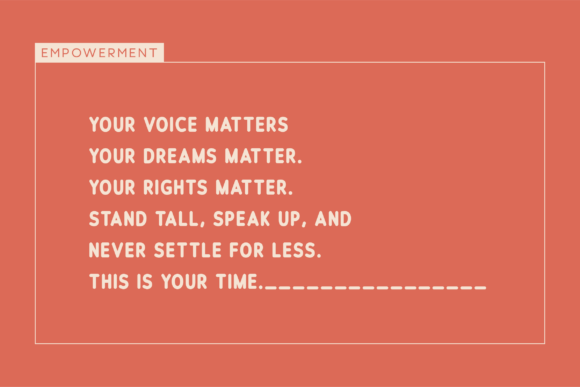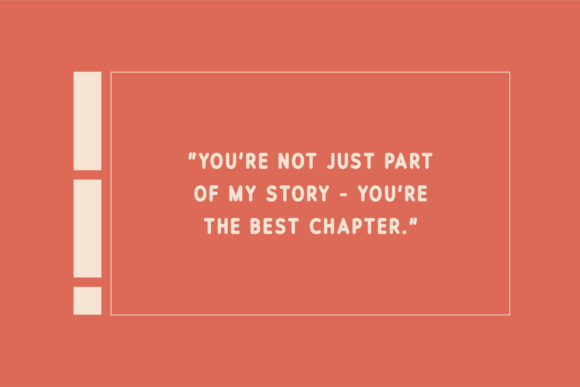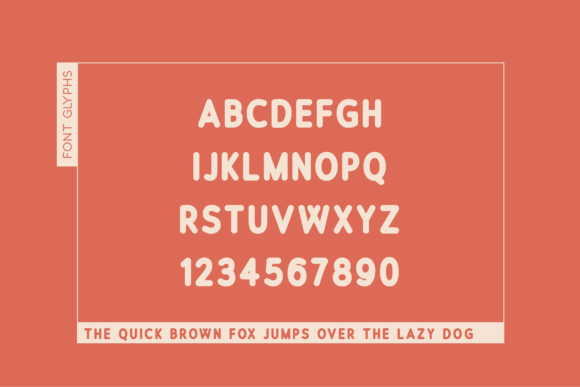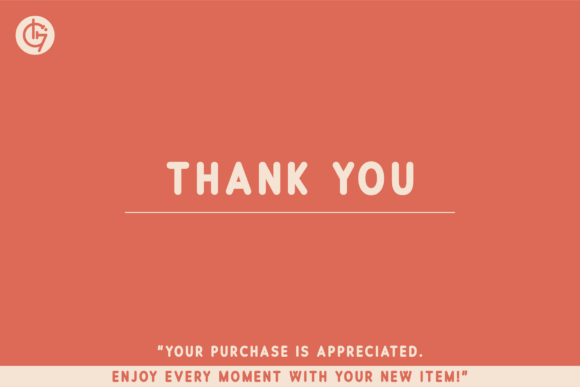
Introduction to Sheldom Font
As designers, we’ve all been there – staring at a blank canvas, trying to bring our creative vision to life. It’s in these moments that the right font can make all the difference. For me, it was the moment I stumbled upon the Sheldom Font, and everything clicked. Its bold, approachable sans-serif design radiated warmth and reliability, making it perfect for brands that value community and comfort.
The Sheldom Font is more than just a design resource – it’s a high-quality tool that can elevate any creative project. With its thick strokes and generous curves, this font is designed to be noticed without being aggressive, making it an excellent choice for outdoor adventure branding, organic product packaging, or large-scale event posters. Plus, its transparent background allows for seamless integration with complex backgrounds.
Key Features of Sheldom Font
- Unique characteristics include elegant and modern typography
- Perfect for designers seeking a professional and clean font for their projects
Honest Review: Sheldom Font
As a designer, I’m always on the lookout for high-quality design resources that can elevate my creative projects. I recently had the chance to work with the Sheldom Font, and I’m excited to share my honest review with you.
- High-quality typography: The Sheldom Font has a clean and modern aesthetic that’s perfect for a wide range of creative projects.
- Transparent background: This allows for seamless integration with background images or colors, giving you more flexibility in your design.
- Limited character set: The Sheldom Font has a relatively limited character set, which may not be suitable for projects that require a wide range of characters.
- No bold or italic weights: While the font has a clean aesthetic, it may not be suitable for projects that require bold or italic text.
Overall, the Sheldom Font is a solid addition to any designer’s toolkit. While it may have some limitations, its high-quality typography and transparent background make it a great choice for a wide range of creative projects.
Tips for Getting the Most Out of Sheldom Font
To get the most out of Sheldom Font, experiment with different font sizes, colors, and styles to create visually appealing designs. You can also use it in combination with other design elements to create a cohesive look.
Sheldom Font is suitable for a wide range of creative projects, including:
- Logo creation
- Typography-based art
Alternatives to Sheldom Font
Open Sans is a popular, high-quality sans-serif font perfect for creative projects. It’s available for free download and comes in various weights and styles. Open Sans is ideal for body text, headings, and titles in modern designs.
When to use: Open Sans is suitable for most design projects, especially those requiring a clean and modern look. It’s a great alternative to Sheldom Font for designs that need a more subtle, yet professional appearance.
Comparison to Sheldom Font: While both fonts are sans-serif, Open Sans has a more modern and minimalist feel compared to the softer, more rounded look of Sheldom Font.
Montserrat is a geometric sans-serif font that’s perfect for design projects requiring a touch of sophistication. It’s available for free download and comes in various weights and styles. Montserrat is ideal for titles, headings, and body text in urban and modern designs.
When to use: Montserrat is suitable for designs that need a strong, urban feel. It’s a great alternative to Sheldom Font for projects that require a more edgy, yet elegant appearance.